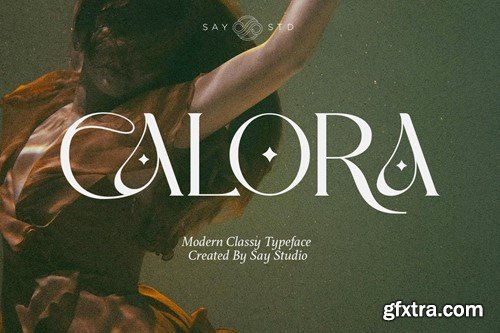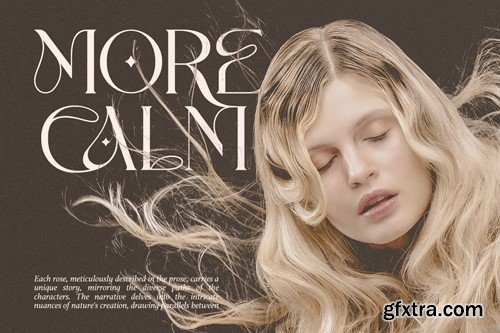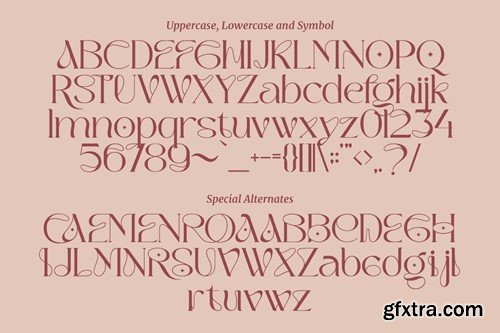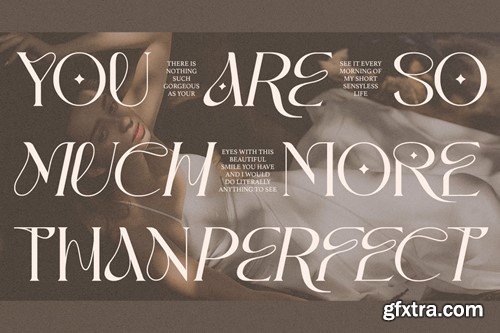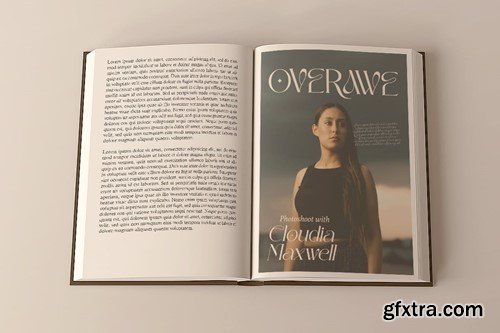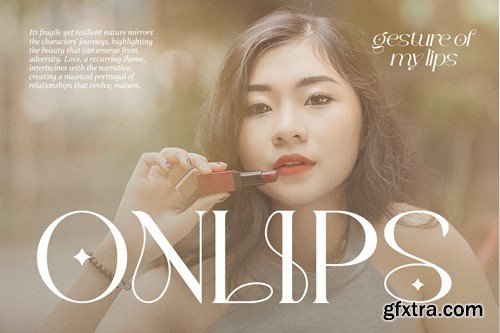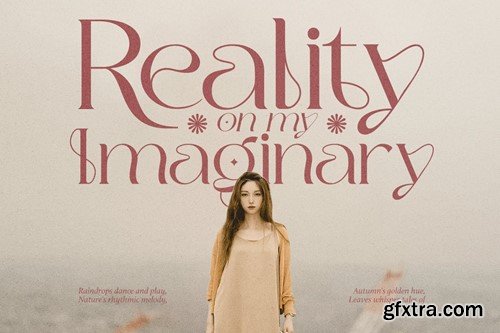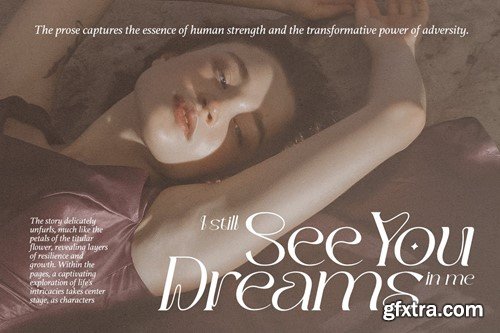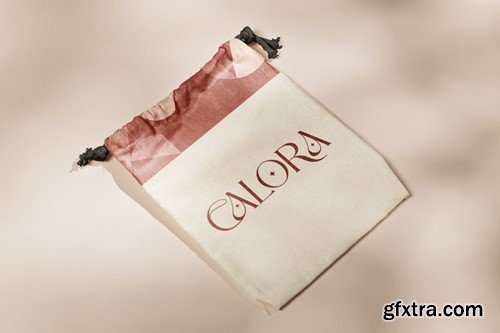
卡尔罗 - 现代奢华字体 UYMA22A
Calora - Modern Luxury Typeface UYMA22A
Calora - Modern Luxury Typeface
Calora is a playful yet elegant serif. It teases your eyes with its curves yet still able to maintain its classy composure.
Perfect for an elegant & luxury logo, classy editorial design, women's magazine, fashion brand, cosmetic brand, fashion promotion , modern advertising design, invitation card, art quote, home decoration, book/cover titles, special events, and much more.
Calora Features:
• Alternates
• Numerals & Punctuation
• Accented characters
• Multilingual Support